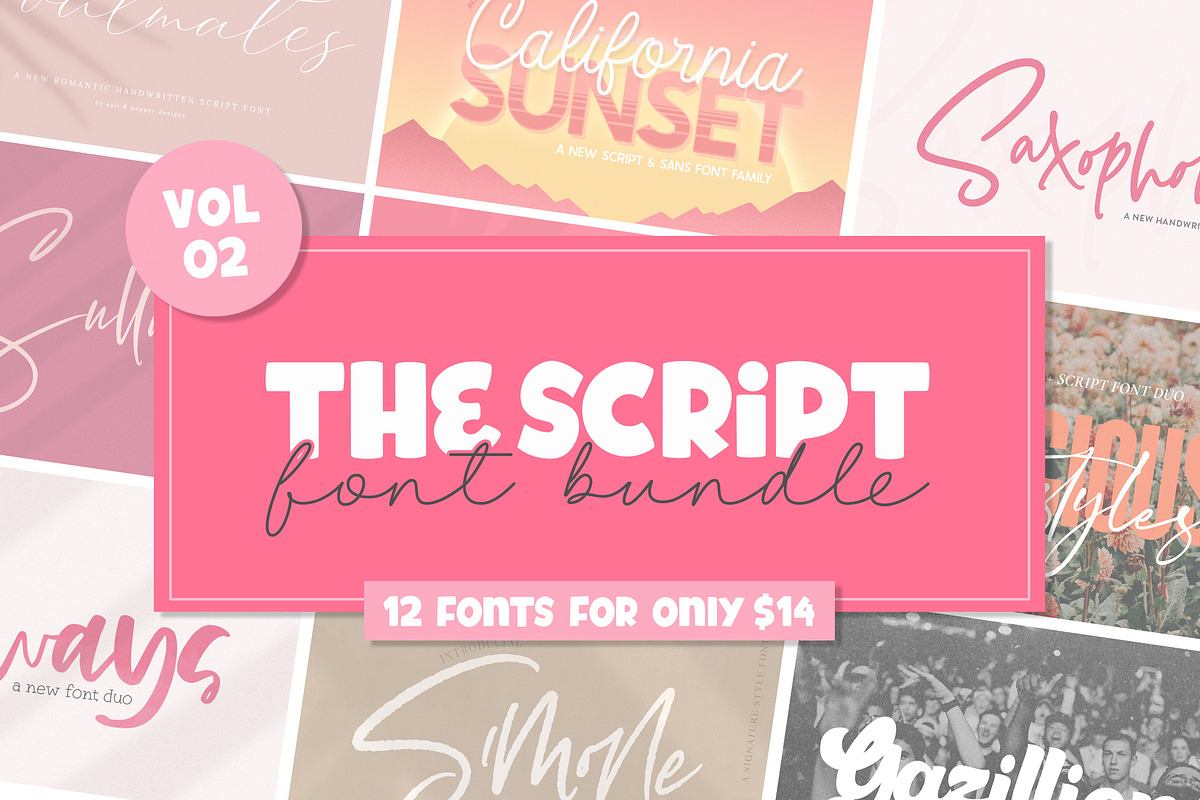
The Script Font Bundle - Vol 02 Free Download
The Script Font Bundle - Vol 02 Free Download is a carefully curated collection of elegant and versatile script fonts designed to elevate your design projects. Featuring a wide variety of stylish handwritten and calligraphic typefaces, this bundle is perfect for branding, invitations, social media graphics, logos, and any creative project that needs a personal, artistic touch.
With The Script Font Bundle - Vol 02 Free Download, you get access to a selection of beautiful scripts, each crafted to bring sophistication and flair to your designs. From elegant, flowing cursive to bold and expressive handwritten styles, this bundle offers endless creative possibilities.
Whether you're designing wedding invitations, crafting a custom logo, or enhancing your social media presence, these fonts help convey emotion, personality, and style. The bundle pairs seamlessly with sans-serifs or decorative fonts, making it easy to create stunning typography combinations.